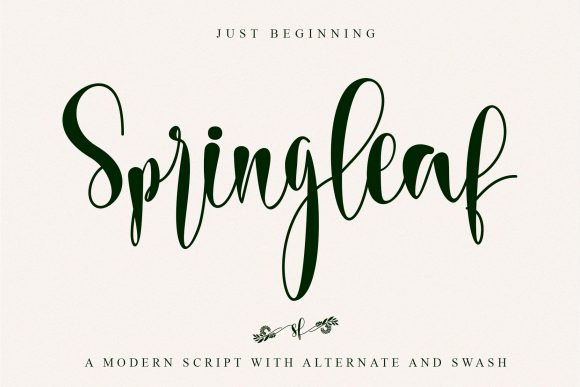
Introducing Springleaf Font, the exquisite script font family, meticulously crafted by thomasaradea. This refined and delicate handwritten font is a true gem for designers and creatives seeking to elevate their projects with a touch of elegance and charm.
Welcome to the world of Springleaf, a font family that will awaken your creativity and transform your designs into captivating works of art. Step into a realm where your words dance with grace and sophistication, leaving a lasting impression on your audience.
Springleaf is more than just a font; it's an experience that transcends the boundaries of ordinary typography. Its intricate curves and flowing lines evoke a sense of artistry and uniqueness, ensuring your designs stand out from the crowd.
Immerse yourself in the endless possibilities that Springleaf offers. Its versatility knows no bounds, making it the perfect choice for a wide range of design projects. From branding and packaging to wedding invitations and social media graphics, Springleaf has the power to transform your ideas into captivating realities.
With Springleaf, you'll discover a font that captures the essence of elegance and sophistication. Its carefully crafted characters effortlessly convey a sense of luxury and refinement, making it the ideal choice for projects that demand a touch of timeless beauty.